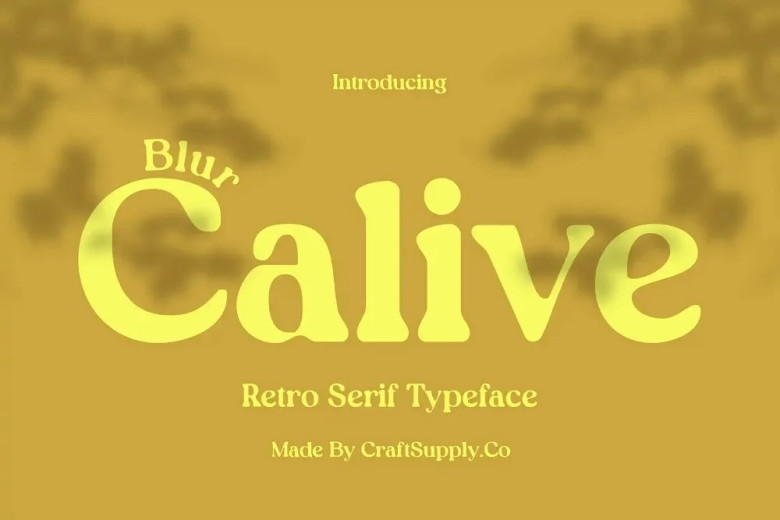
Calive Blur is a retro serif typeface with the blur effect that will perfectly suit designs, which need to look antique, yet modern at the same time. It has an old school appearance and assures your project’s message is timeless and will be of use now and in the future.
This is particularly true if you are making posters, logos, packages or giving an astonishing look to editorials; Calive Blur will make your work to look classic with modern style.
Calive Blur Serif Font